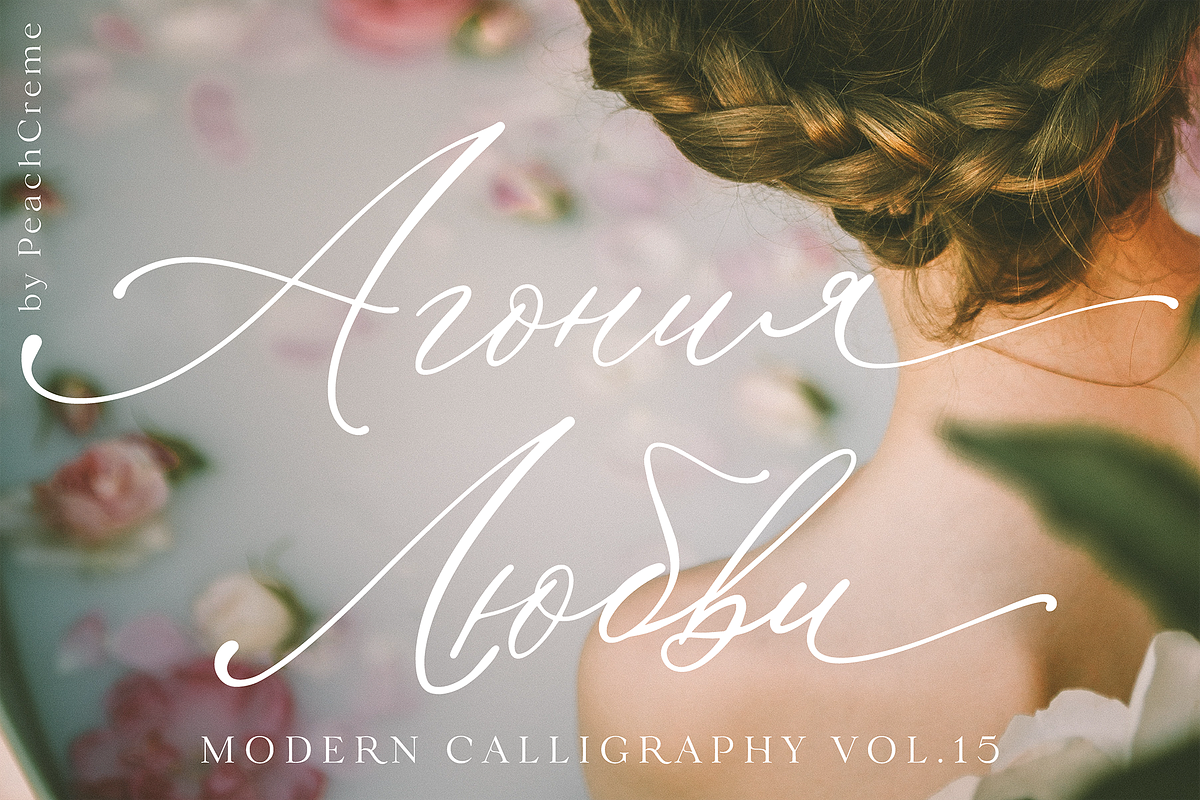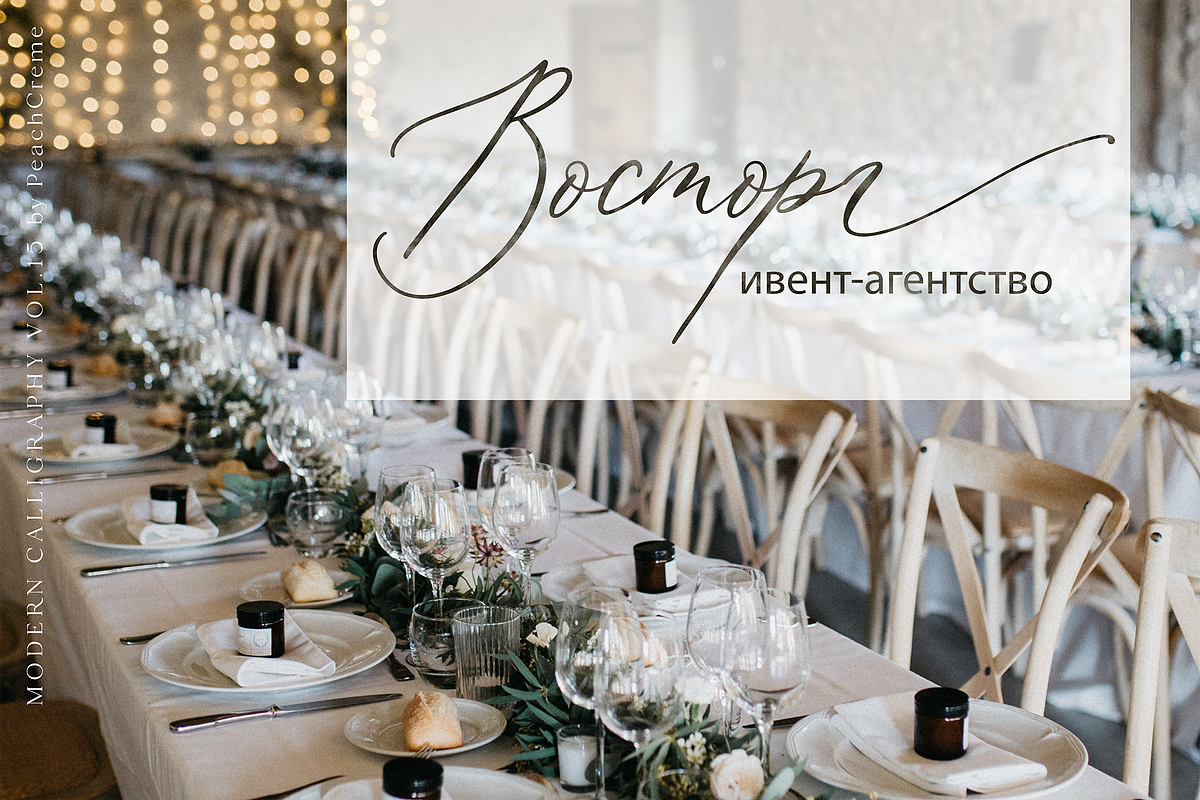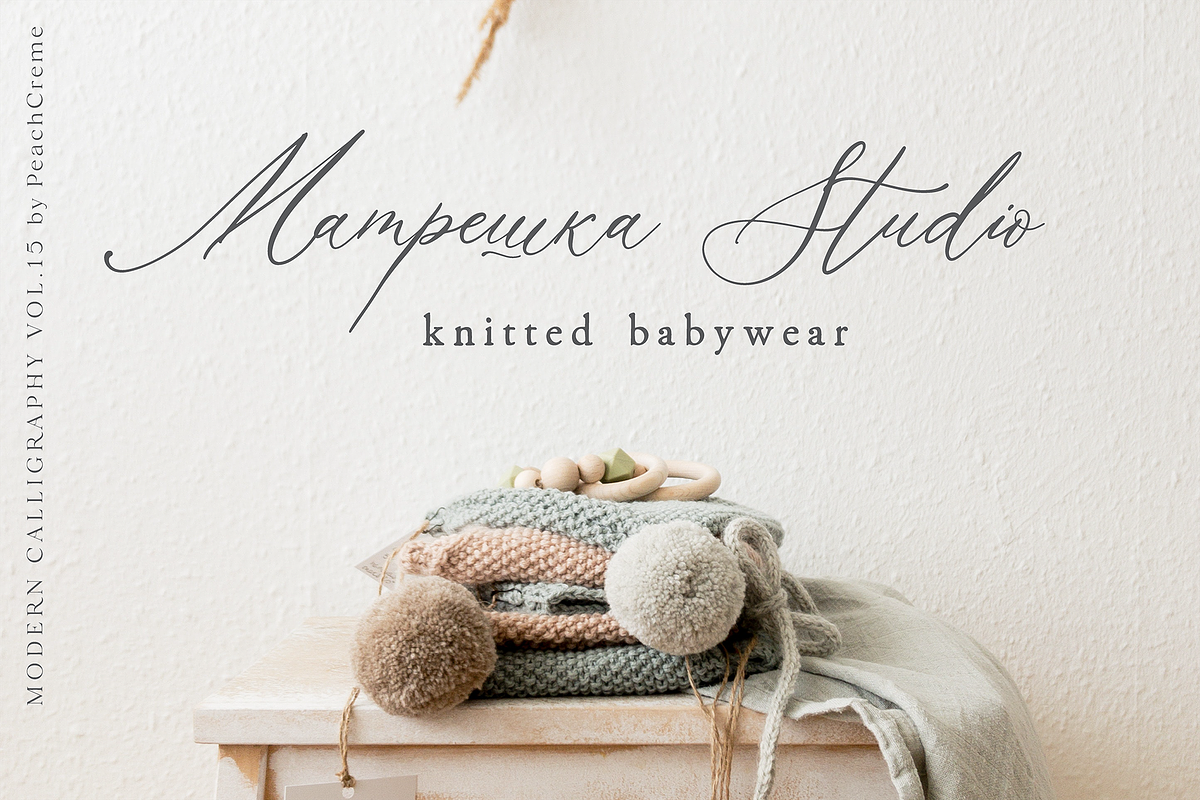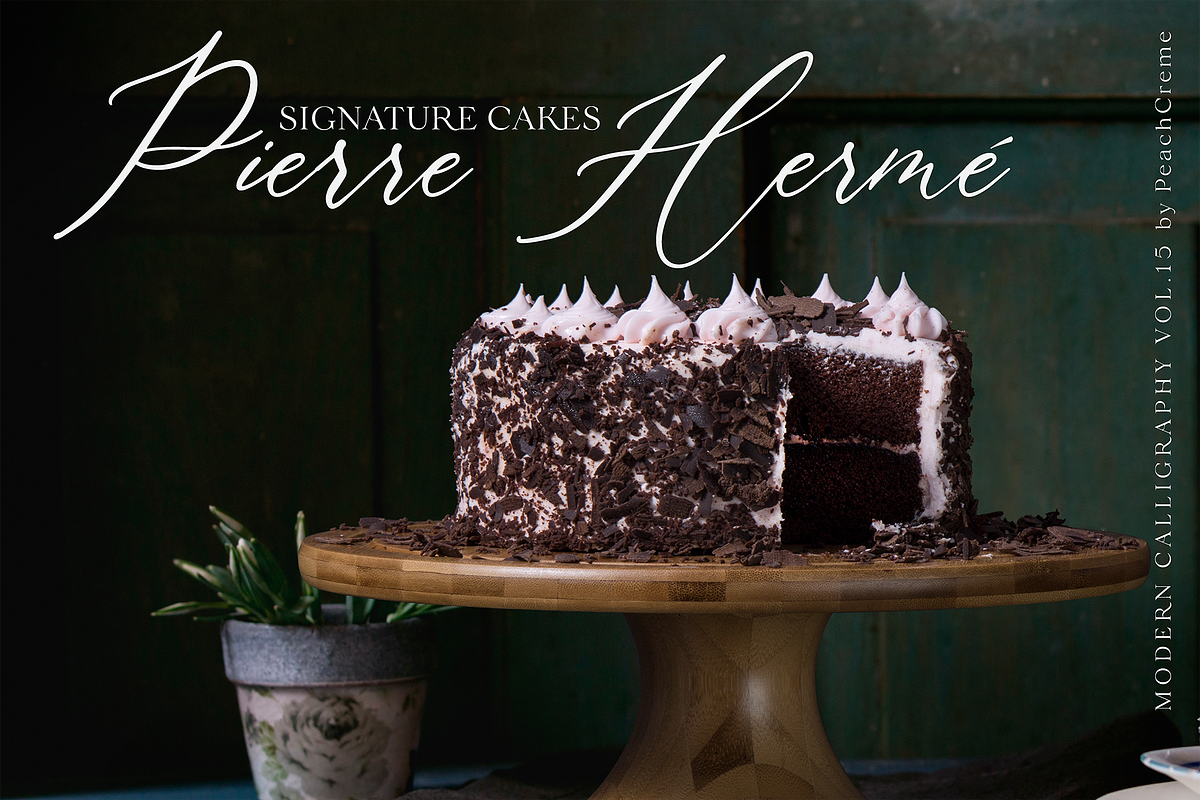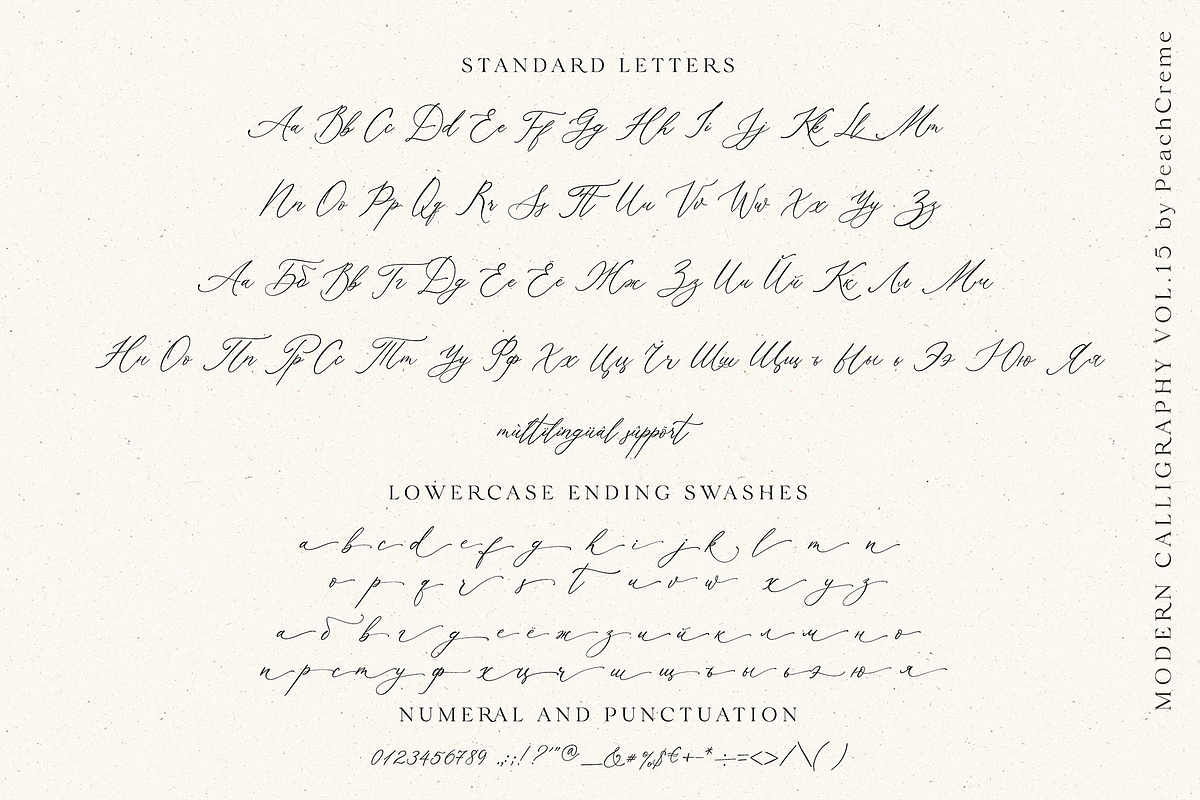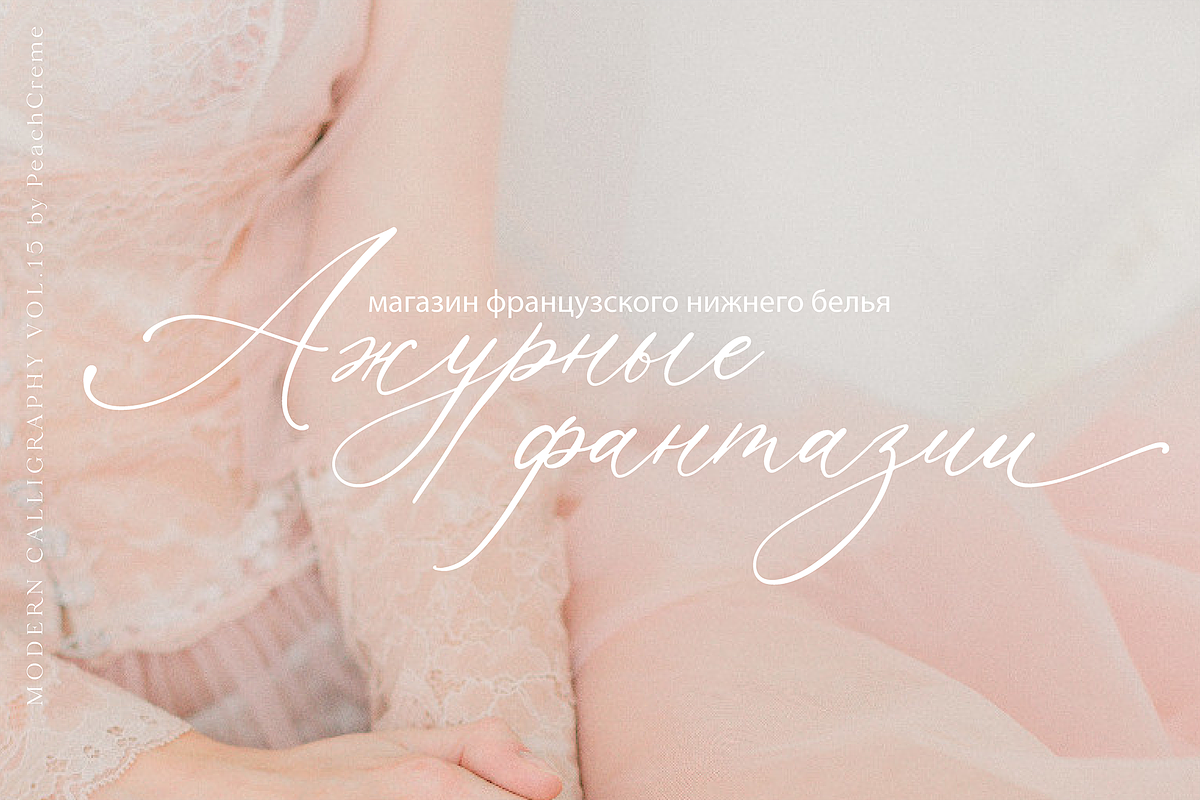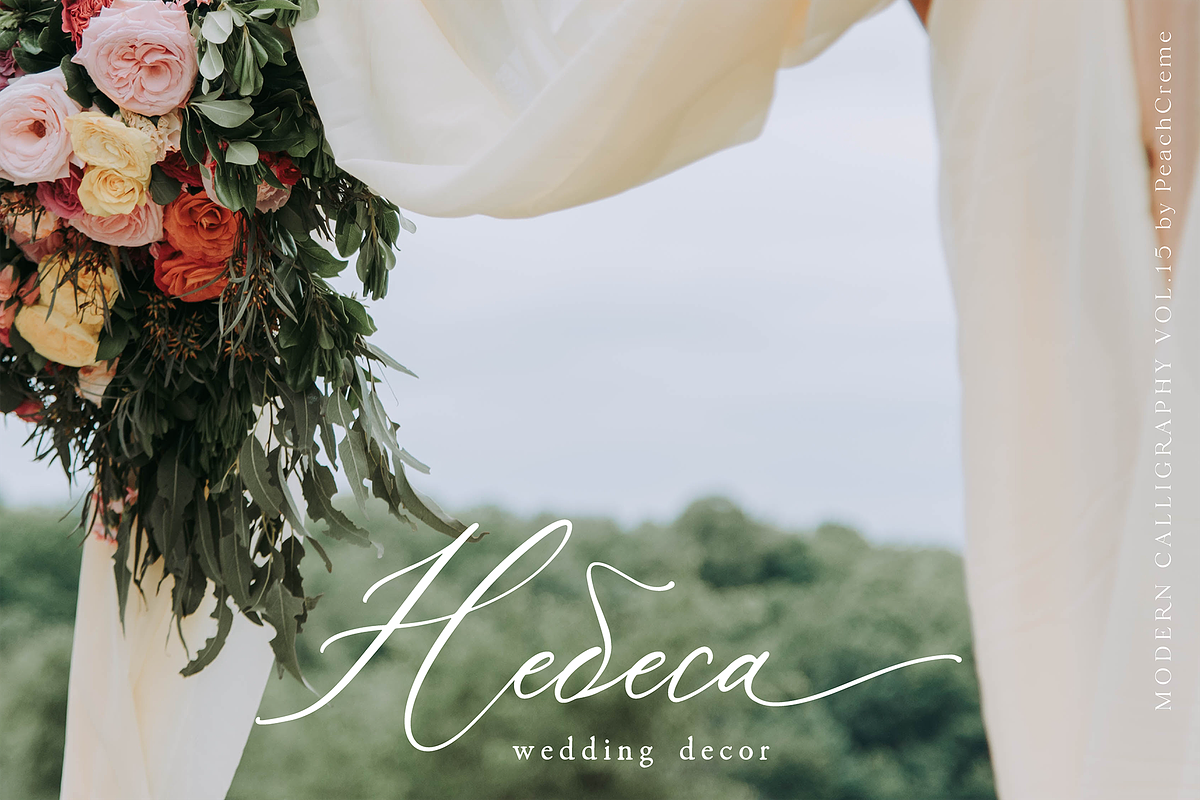
Agonia Lyubvi // Modern Calligraphy
MODERN CALLIGRAPHY VOL.15
Agonia Lyubvi is a crème de la crème cyrillic modern calligraphy font . It is perfect for branding, wedding invites and cards.
"Agonia Lyubvi" includes full set of lovely uppercase and lowercase Cyrillic and English letters, multilingual symbols, numerals, punctuation and ligatures.Also it includes ending lowercase swashes. The font has smooth texture, so would be perfect for all types of printing techniques+you can do embroidery, laser cut, gold foil etc.